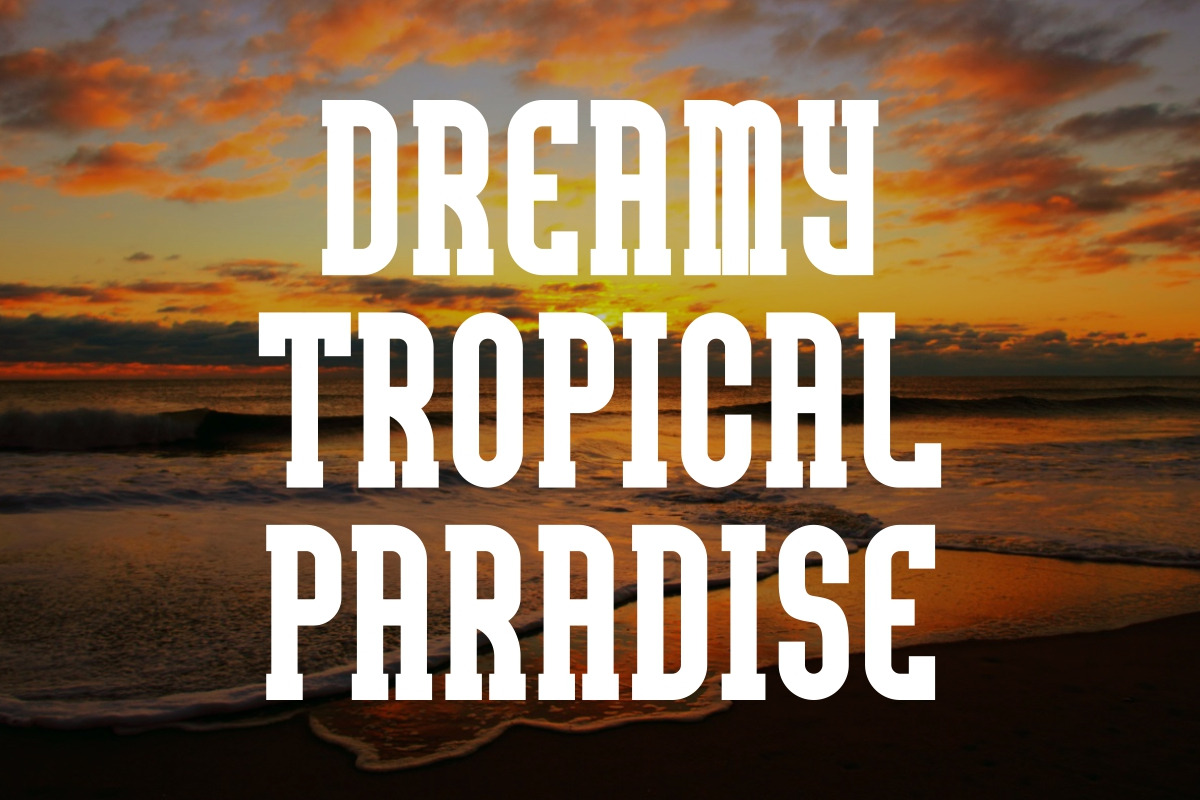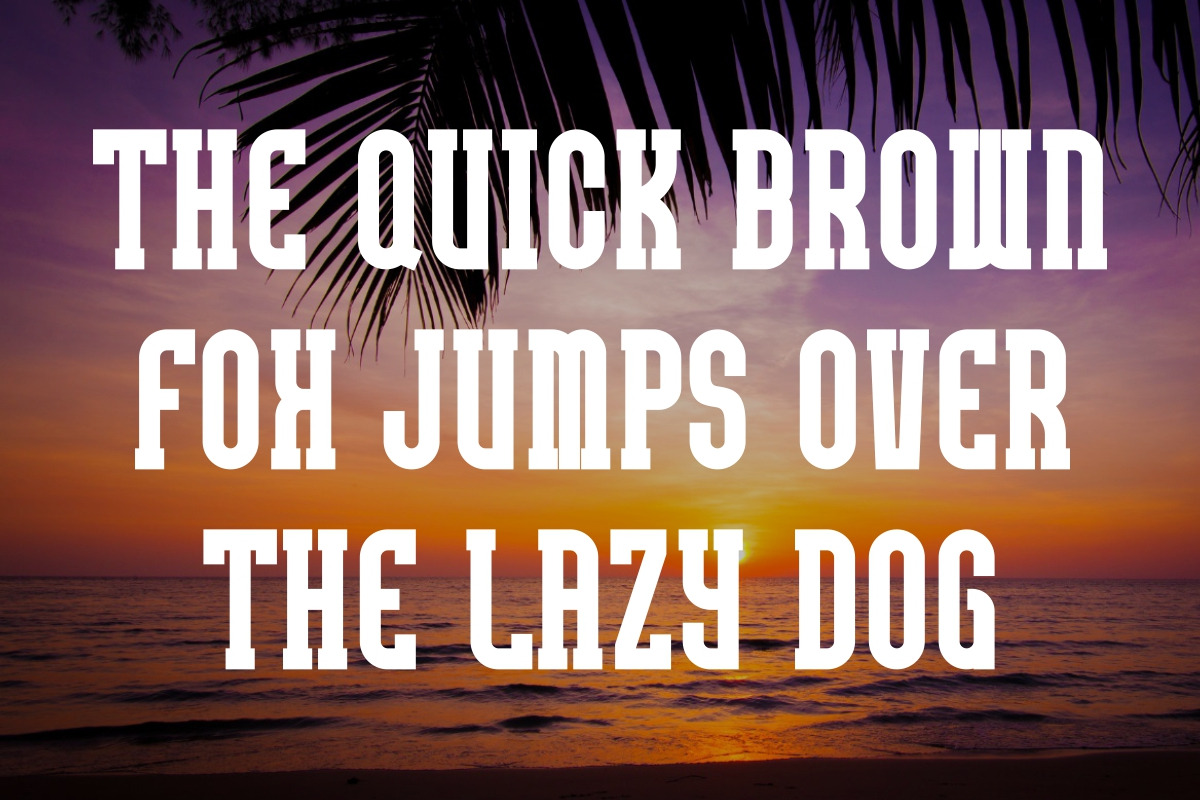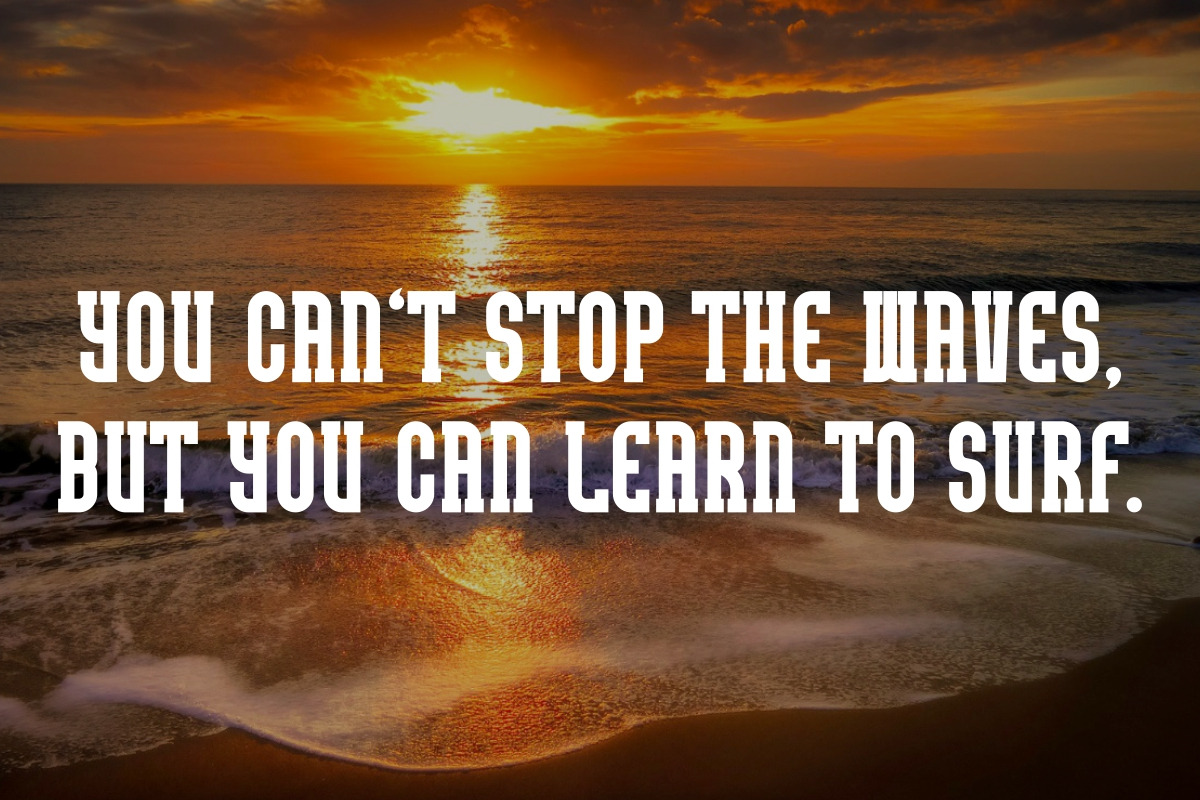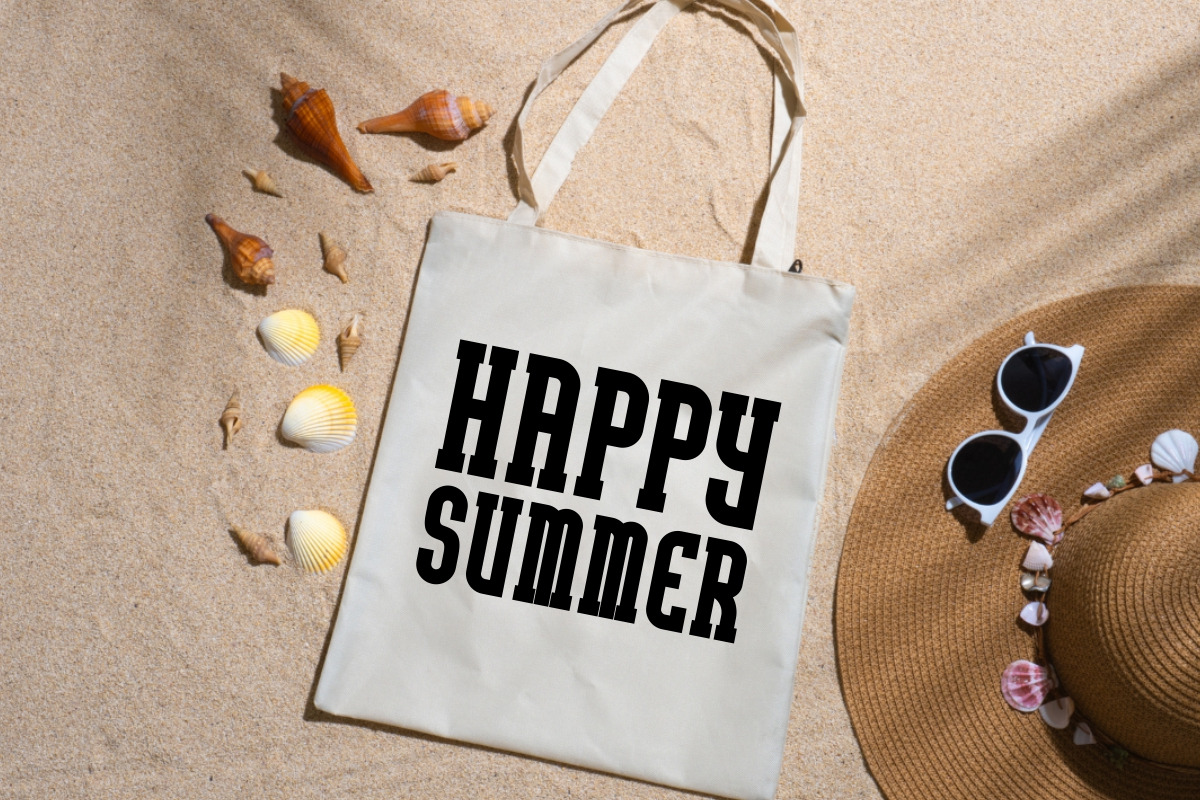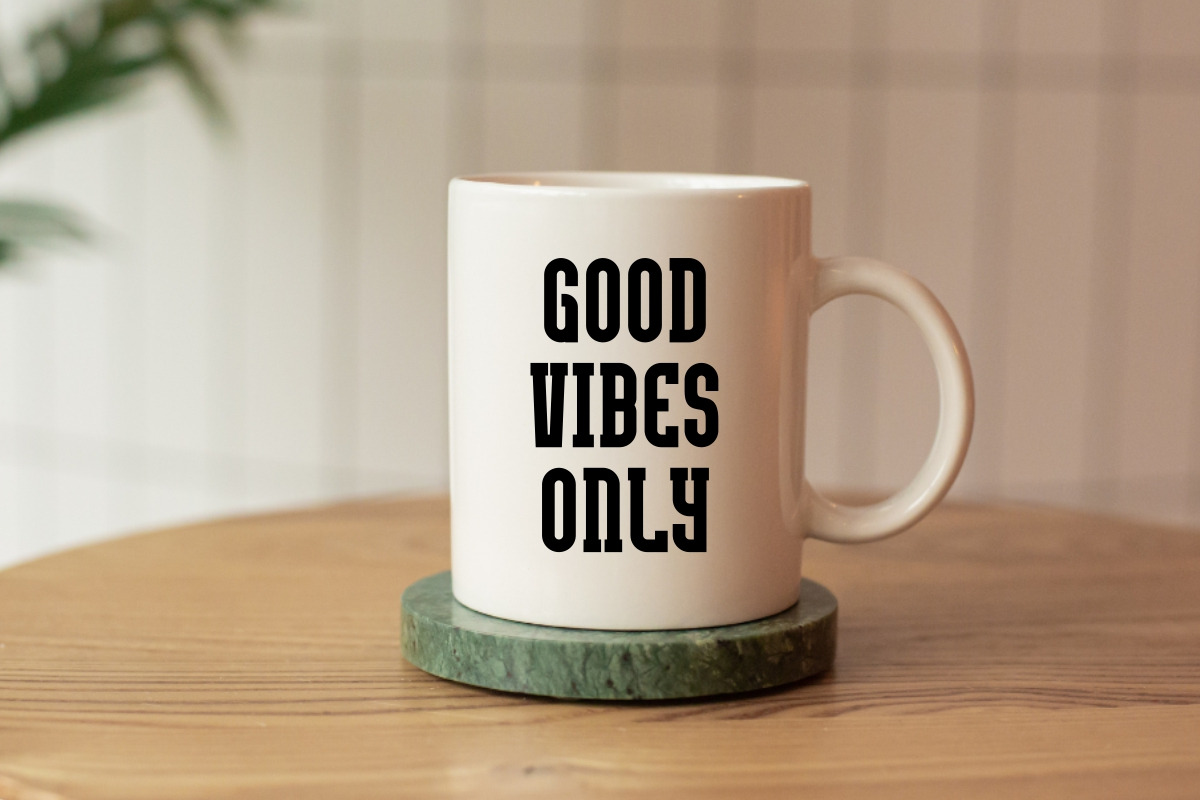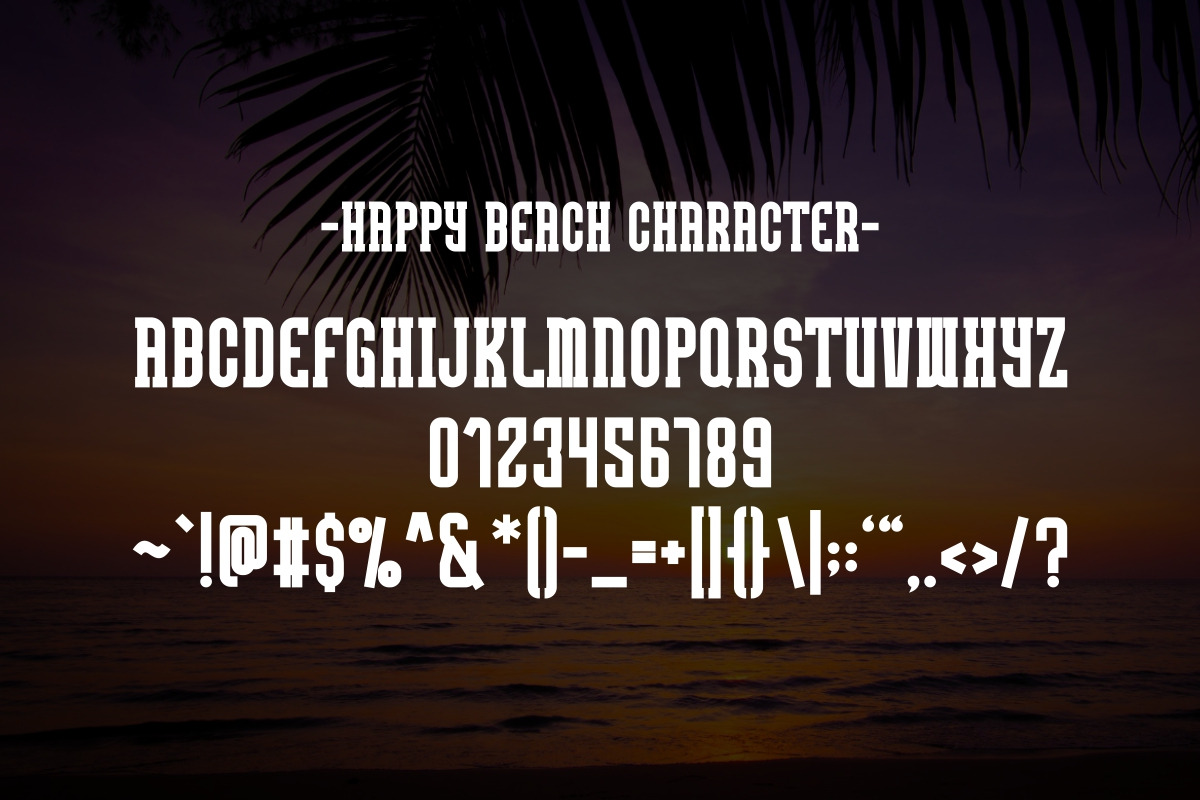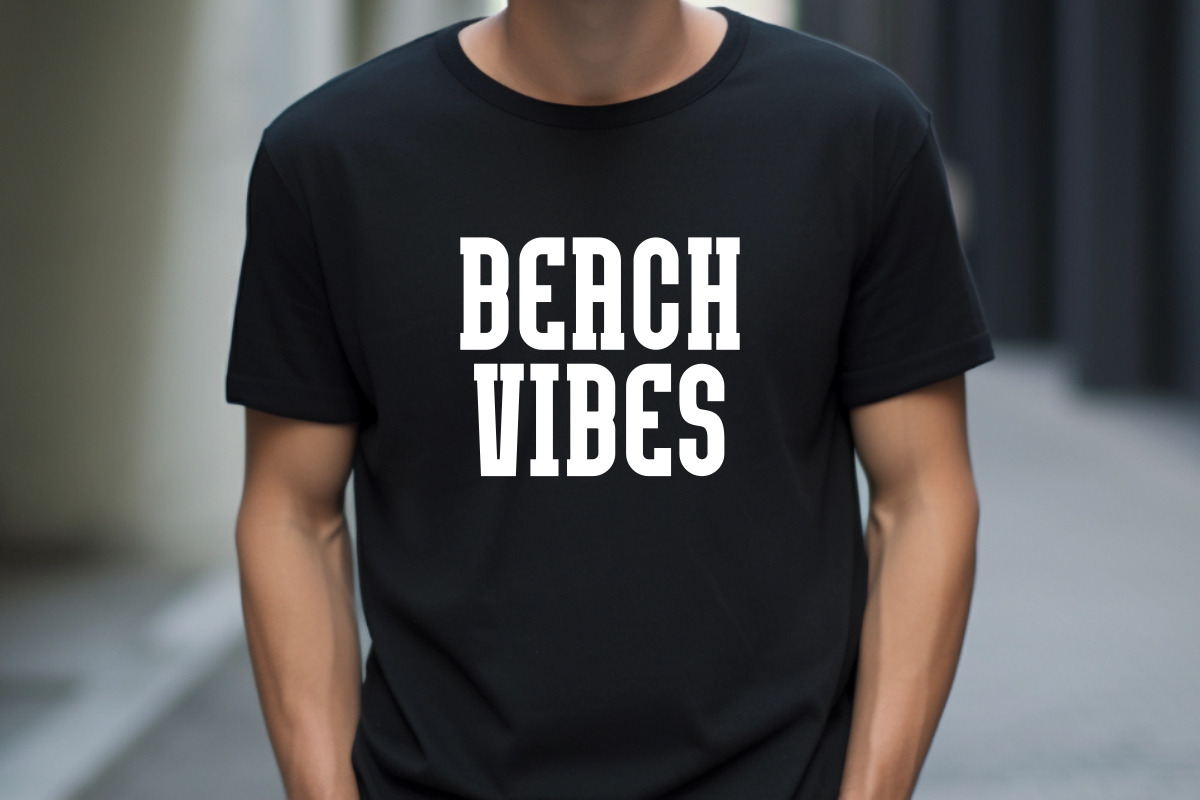
Happy Beach - Playful Slab Serif
Happy Beach is a bold and playful slab serif font that exudes charm and delight. This font brings a touch of fun and excitement to your creative projects. Perfect for posters, quotes, backgrounds, t-shirts, sports apparel, mugs, tote bags and pillows.